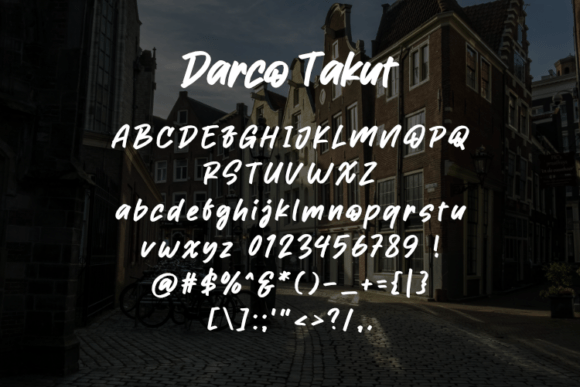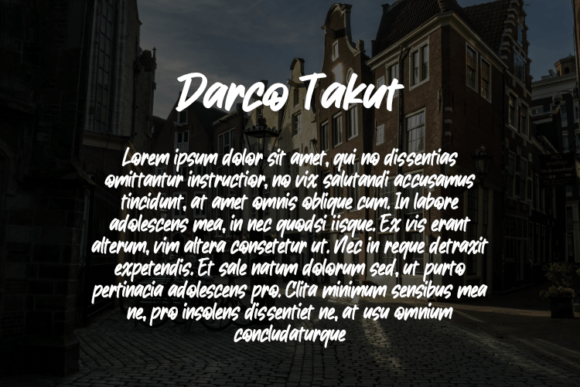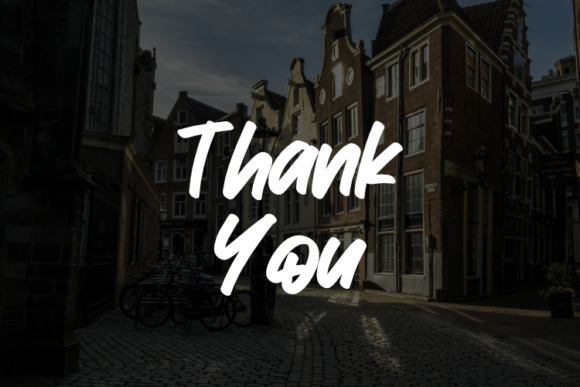
Unleash Your Creativity with Darco Takut Font: The Ultimate Design Companion
Are you a designer, crafty enthusiast, or a business owner looking to elevate your brand’s visual identity? Look no further than the Darco Takut font, a stylish and versatile typeface designed to take your creative projects to the next level. In this article, we’ll dive into the world of Darco Takut, exploring its features, benefits, and the endless possibilities it offers for fashion-forward design.
Introducing Darco Takut: A Font that Speaks Style and Sophistication
Darco Takut is more than just a font – it’s a design statement. With its sleek lines, elegant curves, and modern aesthetic, this font is perfect for anyone looking to add a touch of sophistication to their designs. Whether you’re working on apparel, t-shirts, posters, or any other creative project, Darco Takut seamlessly integrates with your vision, transforming ordinary designs into extraordinary ones.
Endless Possibilities with Darco Takut
One of the most significant advantages of Darco Takut is its versatility. This font is not limited to a specific type of design or industry. Instead, it’s a one-size-fits-all solution that can be used across various platforms and applications. Here are just a few examples of how you can use Darco Takut to elevate your designs:
- Apparel and Fashion: Add a stylish touch to your t-shirts, hoodies, dresses, and other clothing items with Darco Takut. Its modern look and feel make it perfect for fashion brands, designers, and enthusiasts.
- Stationery and Branding: Create stunning business cards, brochures, and letterheads with Darco Takut. Its elegant design ensures that your brand stands out and leaves a lasting impression.
- Digital Media: Use Darco Takut in your social media graphics, blog posts, and website designs to maintain a consistent visual identity and elevate your online presence.
- Crafting and DIY Projects: Whether you’re creating handmade cards, scrapbooking, or working on other crafty projects, Darco Takut can add a professional touch to your designs.
Why Choose Darco Takut?
With so many fonts available in the market, why should you choose Darco Takut? Here are a few compelling reasons:
- Unique Style: Darco Takut offers a distinctive and modern aesthetic that sets it apart from other fonts.
- Versatility: This font can be used across various design applications, making it a valuable addition to your font library.
Darco Takut is more than just a font – it’s a design companion that can help you unlock your creative potential. With its stylish and modern aesthetic, versatility, and technical excellence, this font is perfect for designers, crafters, and businesses looking to elevate their visual identity.
Whether you’re working on a fashion-forward design or a crafty project, Darco Takut is the ultimate solution. So why wait? Embrace the creative fusion of style and typography with Darco Takut and transform the ordinary into extraordinary.